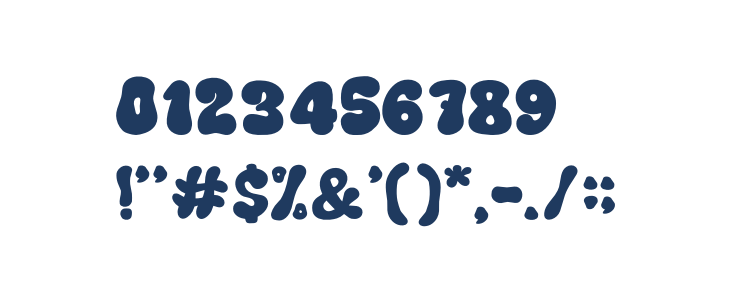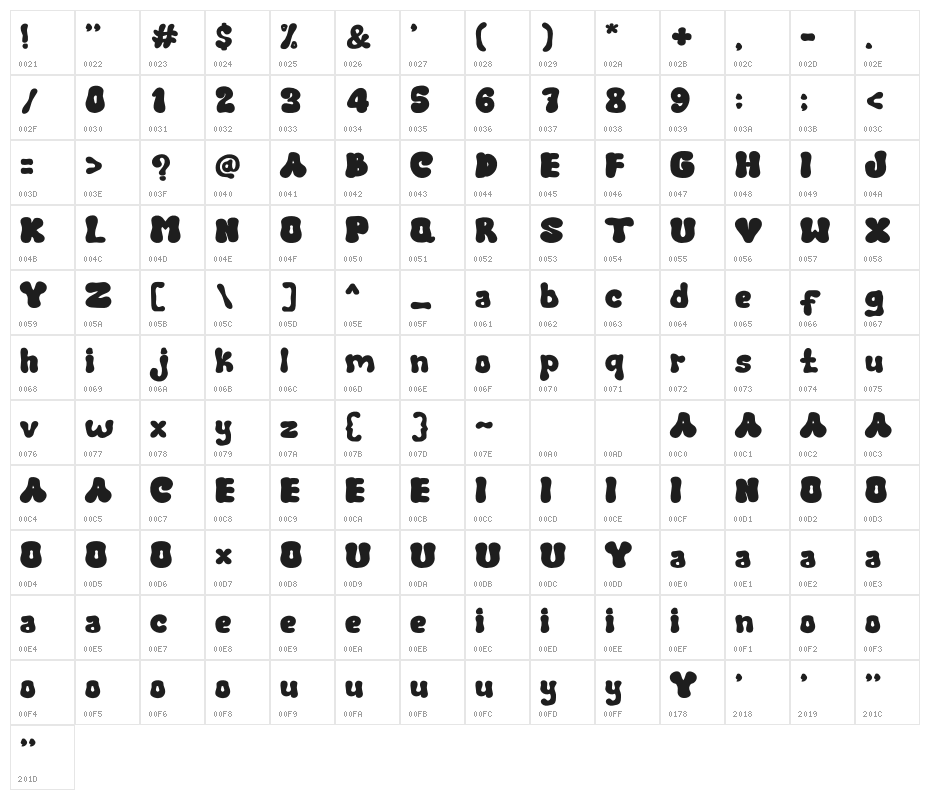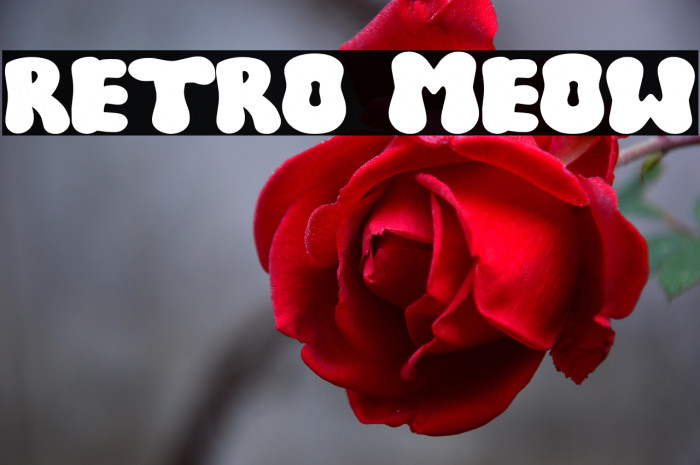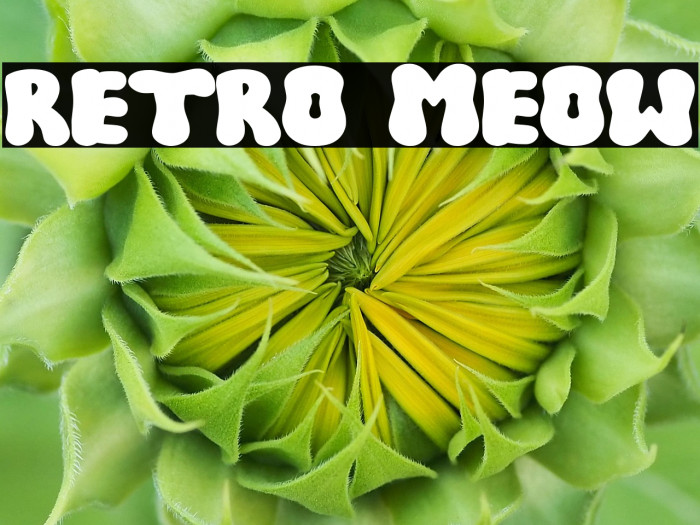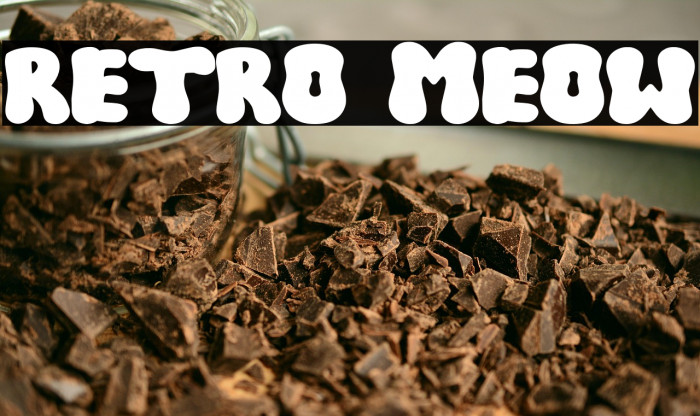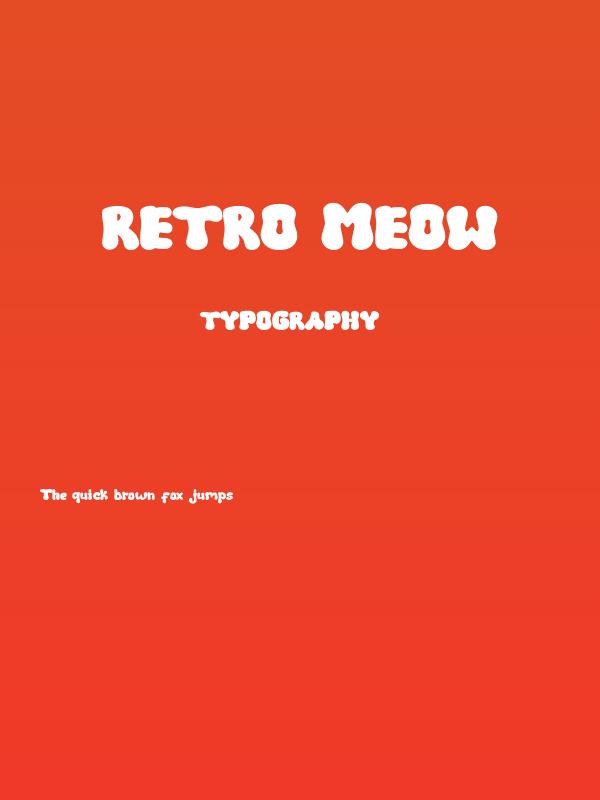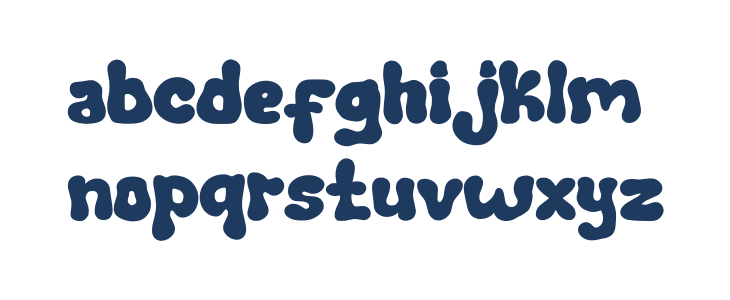
RETRO MEOW Font
RETRO MEOW Description
This playful and bold typeface exudes a retro charm with its thick, rounded letterforms that create a sense of fun and nostalgia. The characters are designed with a bubbly appearance, featuring smooth curves and a consistent stroke width that gives them a cohesive look. The font's unique style is reminiscent of vintage signage and pop culture from the mid-20th century, making it ideal for projects that aim to capture a whimsical or nostalgic vibe. Its bold presence ensures that it stands out, making it suitable for eye-catching headlines or creative branding projects.
| Overall Style | Retro, Playful |
| Proposed Projects | Perfect for retro-themed posters, playful branding, children's book covers, and vintage-inspired merchandise. |